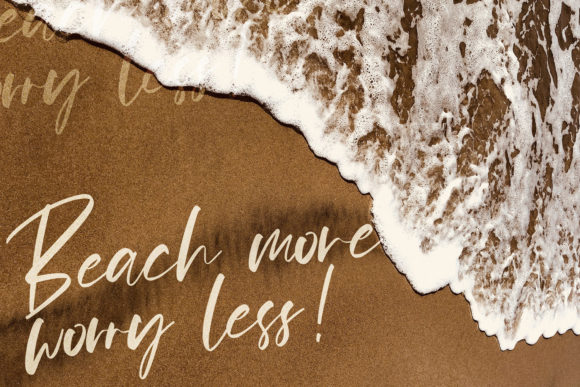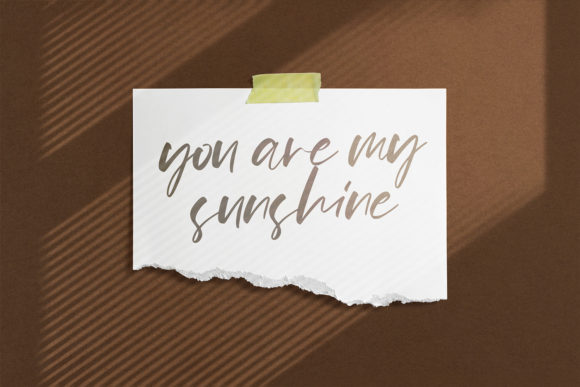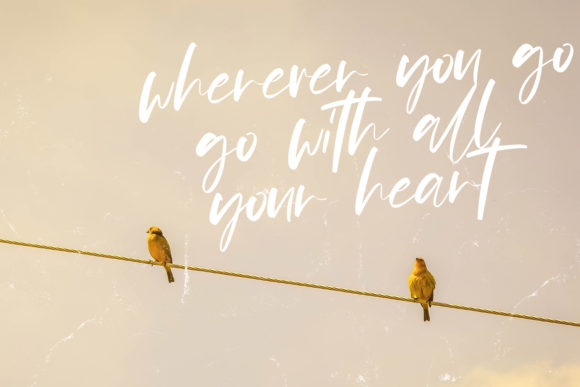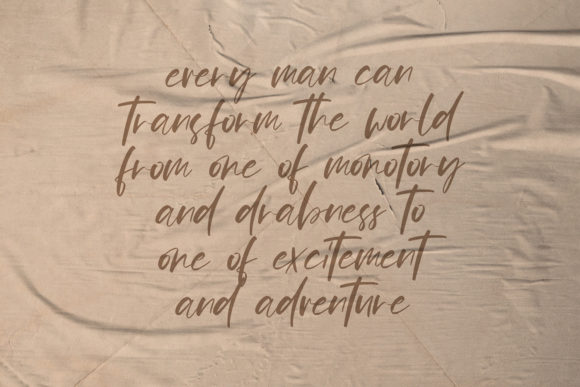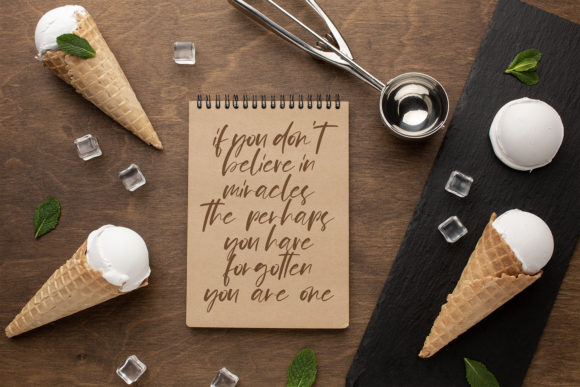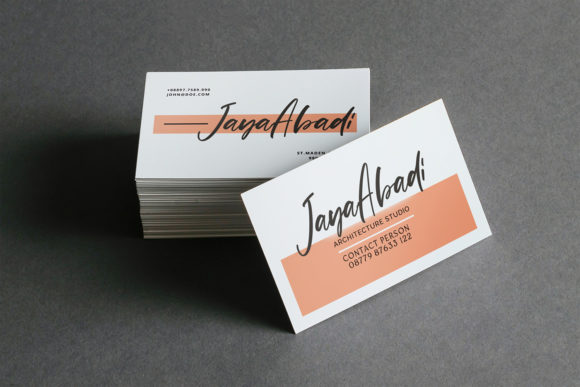
Introduction to Pejuang Cinta Font
Pejuang Cinta is an incredibly relaxed and flowing handwritten font.
Its casual charm makes this font incredibly versatile and down-to-earth, fitting a wide pool of contexts, both formal and non-formal .